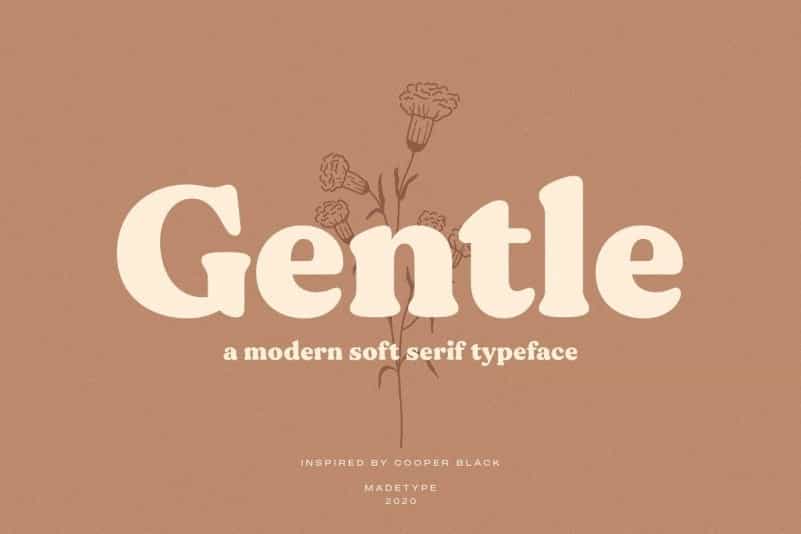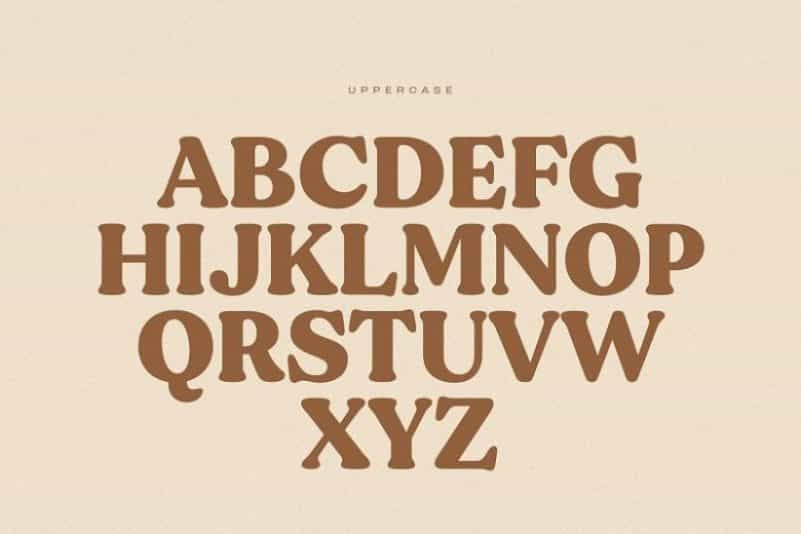
Meet Gentle Font. A retro inspired soft serif font duo designed for headlines branding and logotypes. This font combo brings an welcoming touch to any application. By incorporating the ligatures and alternates included in this type family you can elevate your typography to create appealing compositions that capture attention effortlessly.